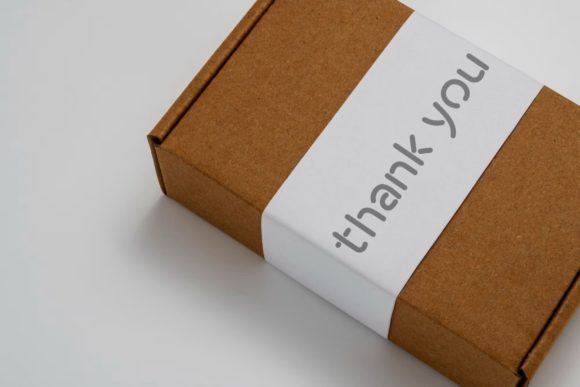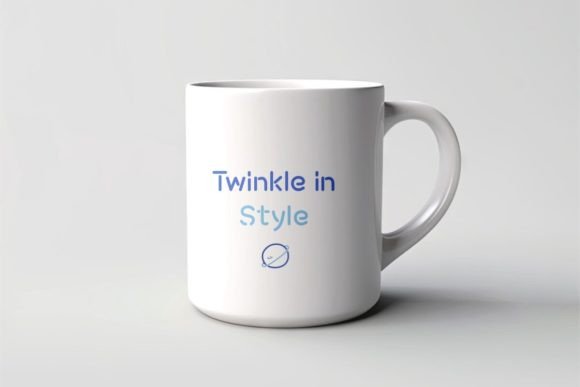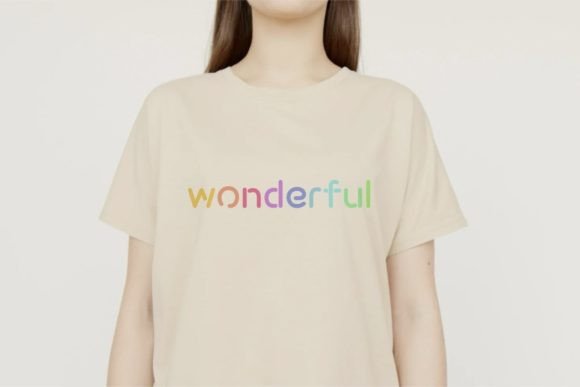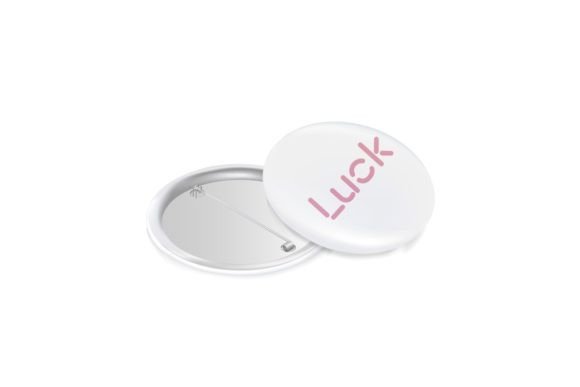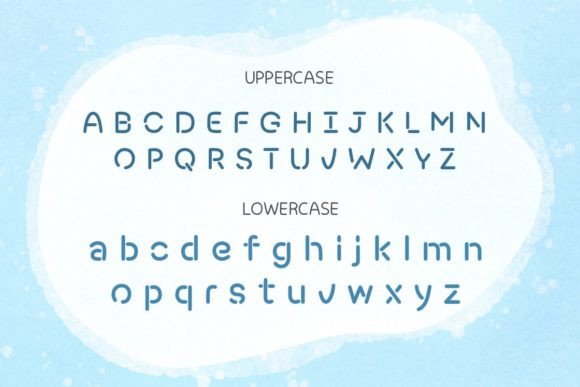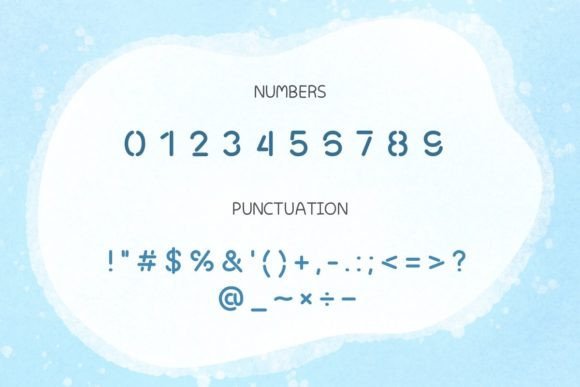
GlimmerSpace Font: Elevate Your Designs with a Modern Sans Display Font
Are you tired of using the same old fonts in your designs? Look no further than GlimmerSpace, a fun and modern sans display font that’s sure to add a touch of excitement to your creative projects. In this article, we’ll dive into the world of GlimmerSpace and explore its features, benefits, and uses, helping you to unlock its full potential and take your designs to the next level.
What is GlimmerSpace Font?
GlimmerSpace is a sans display font that’s designed to make a statement. With its clean lines, modern aesthetic, and highly legible design, it’s perfect for use in a variety of creative projects, from branding and advertising to packaging and digital media. Whether you’re a designer, crafty DIY enthusiast, or simply someone who loves to dabble in creative pursuits, GlimmerSpace is sure to become a favorite in your font collection.
Key Features of GlimmerSpace Font
- Modern sans design: GlimmerSpace boasts a sleek and contemporary design that’s perfect for creating modern, eye-catching visuals.
- Highly legible: Despite its bold and attention-grabbing design, GlimmerSpace remains highly legible, even at smaller font sizes.
- Versatile: GlimmerSpace can be used in a wide range of creative projects, from digital media to print materials.
- Easily customizable: With its clean lines and simple design, GlimmerSpace is easy to customize to suit your specific needs.
Benefits of Using GlimmerSpace Font
So why choose GlimmerSpace over other fonts? Here are just a few benefits of using this versatile and modern sans display font:
- Adds a touch of modernity: GlimmerSpace’s sleek design instantly adds a touch of modernity to your designs, helping you to create fresh and contemporary visuals.
- Improves legibility: With its highly legible design, GlimmerSpace ensures that your message is communicated clearly and effectively.
- Increases creativity: GlimmerSpace’s unique design and versatility inspire creativity, helping you to think outside the box and come up with innovative design solutions.
- Perfect for branding: GlimmerSpace’s modern aesthetic and highly legible design make it perfect for use in branding and advertising projects.
Using GlimmerSpace Font in Your Designs
So how can you use GlimmerSpace in your designs? Here are a few ideas to get you started:
- Branding and advertising: Use GlimmerSpace to create bold and eye-catching branding and advertising materials, such as logos, billboards, and magazine ads.
- Digital media: GlimmerSpace is perfect for use in digital media, including social media graphics, website headers, and email newsletters.
- Packaging design: Add a touch of modernity to your packaging designs with GlimmerSpace, making your products stand out on store shelves.
- Crafting and DIY projects: GlimmerSpace is also perfect for use in crafting and DIY projects, such as making signs, banners, and other handmade items.
Tips and Tricks for Getting the Most Out of GlimmerSpace
Here are a few tips and tricks for getting the most out of GlimmerSpace:
- Experiment with different colors: GlimmerSpace looks great in a variety of colors, so don’t be afraid to experiment and find the perfect hue for your design.
- Play with font sizes: GlimmerSpace is highly legible even at smaller font sizes, so try using it in a range of sizes to add visual interest to your designs.
- Combine with other fonts: GlimmerSpace pairs well with a variety of other fonts, so try combining it with other fonts to create unique and interesting visual effects.
| Font Name | Glimmerspace Font |
| Author | YooPIG |
In conclusion, GlimmerSpace is a fun and modern sans display font that’s perfect for adding a touch of excitement to your creative projects. With its clean lines, highly legible design, and versatility, it’s sure to become a favorite in your font collection. Whether you’re a designer, crafty DIY enthusiast, or simply someone who loves to dabble in creative pursuits, GlimmerSpace is a great choice for anyone looking to elevate their designs and take their creativity to the next level.